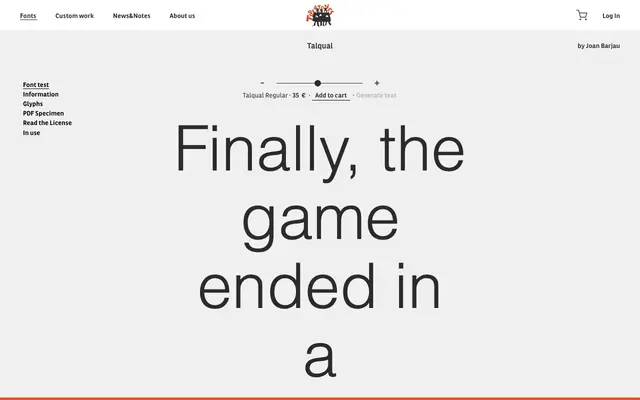
Talqual
Type-ø-tones · Joan Barjau
A single-weight display face by Joan Barjau, released through the Barcelona-based Type-ø-tones foundry.
Talqual is offered in one weight, Regular, with no italic or condensed variants indicated on the product page. The specimen copy is minimal, leaving the typeface's intended application and formal characteristics largely undocumented from the available page content. Published by Type-ø-tones, a foundry known for experimental and culturally engaged type design.
The page offers minimal contextual information, but the single-weight offering and the font name suggest a display or experimental typeface rather than a text face; classified as display pending further specimen detail.